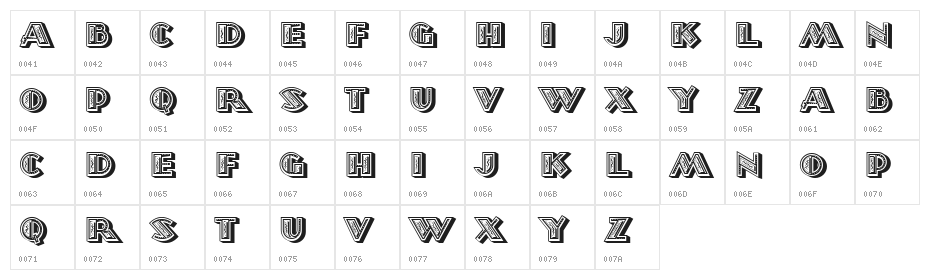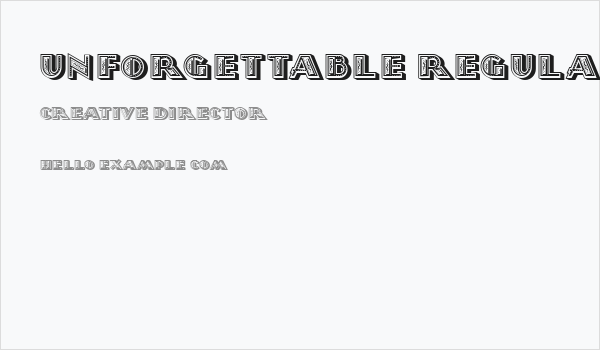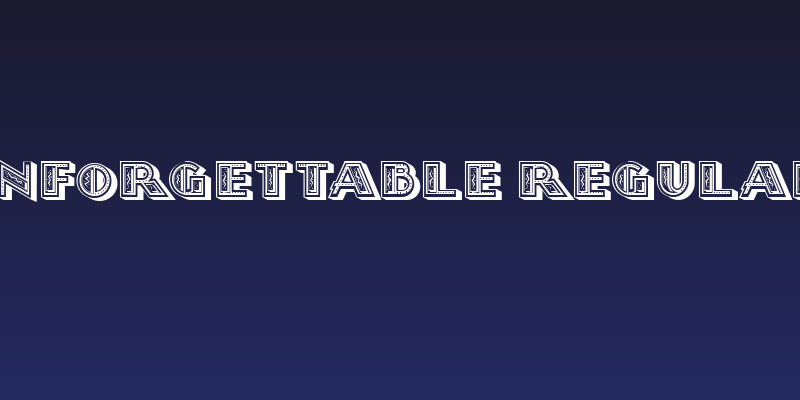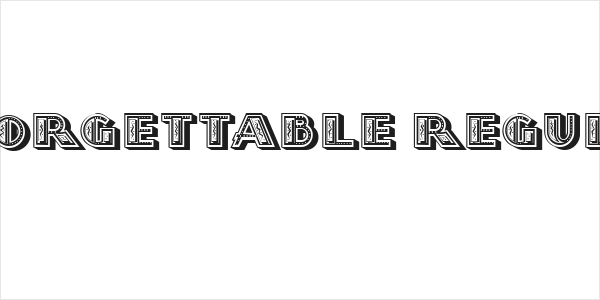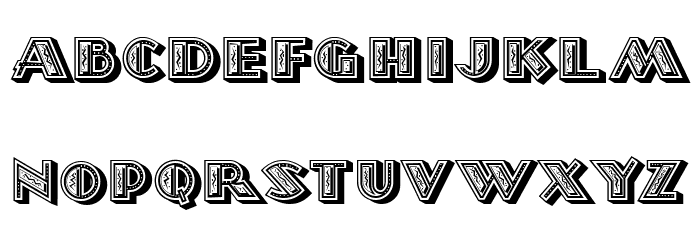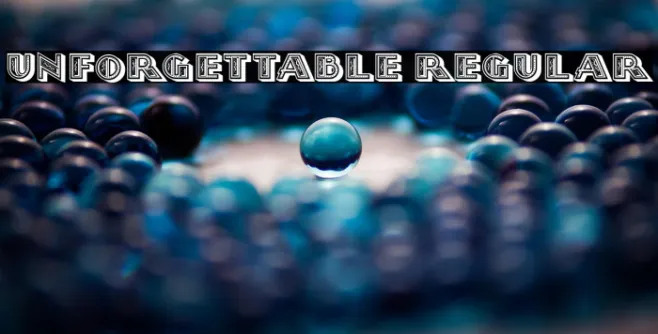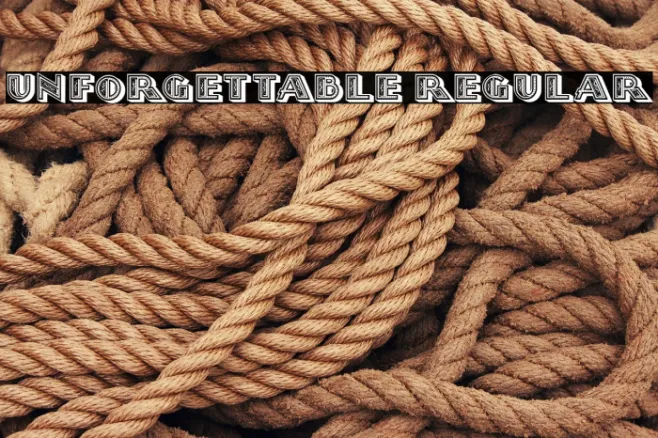
Unforgettable Regular Font
Unforgettable Regular Description
This font features a bold and decorative style with a three-dimensional effect. Each character is outlined with a thick black border, creating a striking contrast against the white interior. The inner detailing includes intricate patterns that add depth and complexity to the overall appearance. The uppercase letters are uniform in height and width, maintaining a consistent look across the alphabet. This font's unique design makes it stand out, ideal for eye-catching displays and creative projects.
| Proposed Projects | Ideal for posters, headlines, branding, and any project requiring a bold, attention-grabbing typeface. |